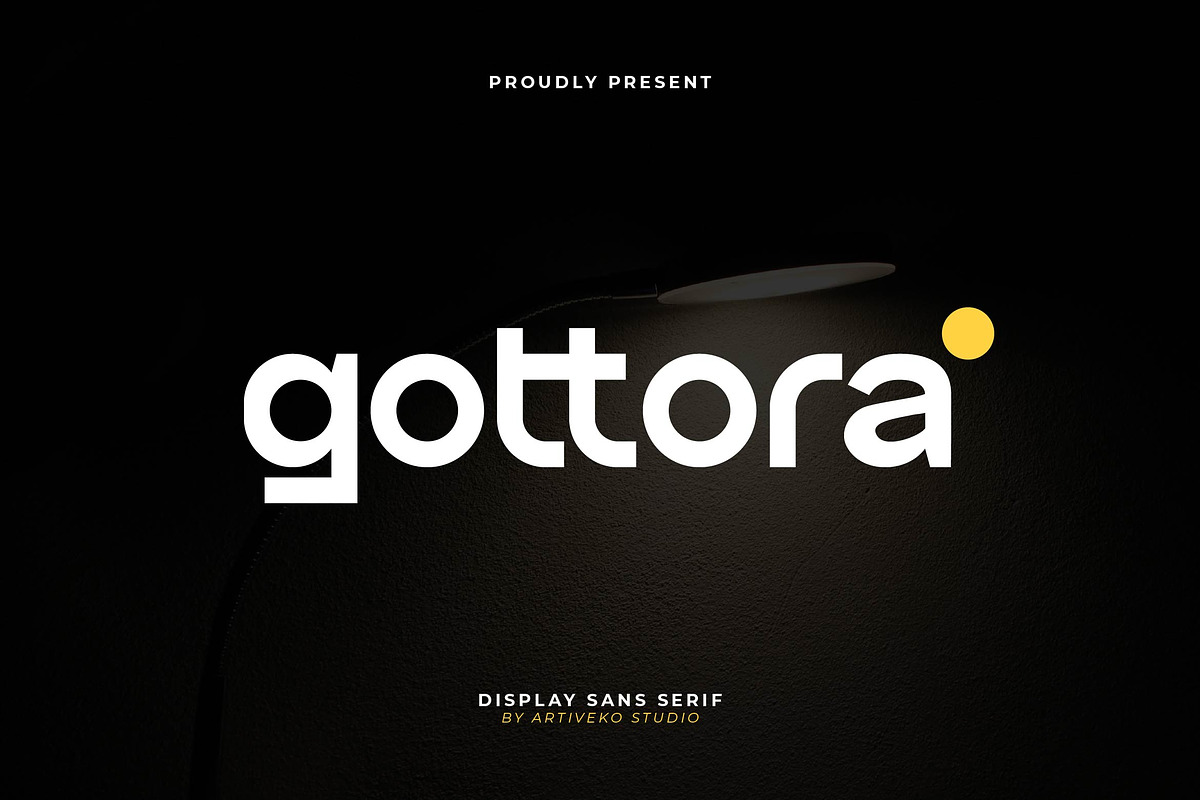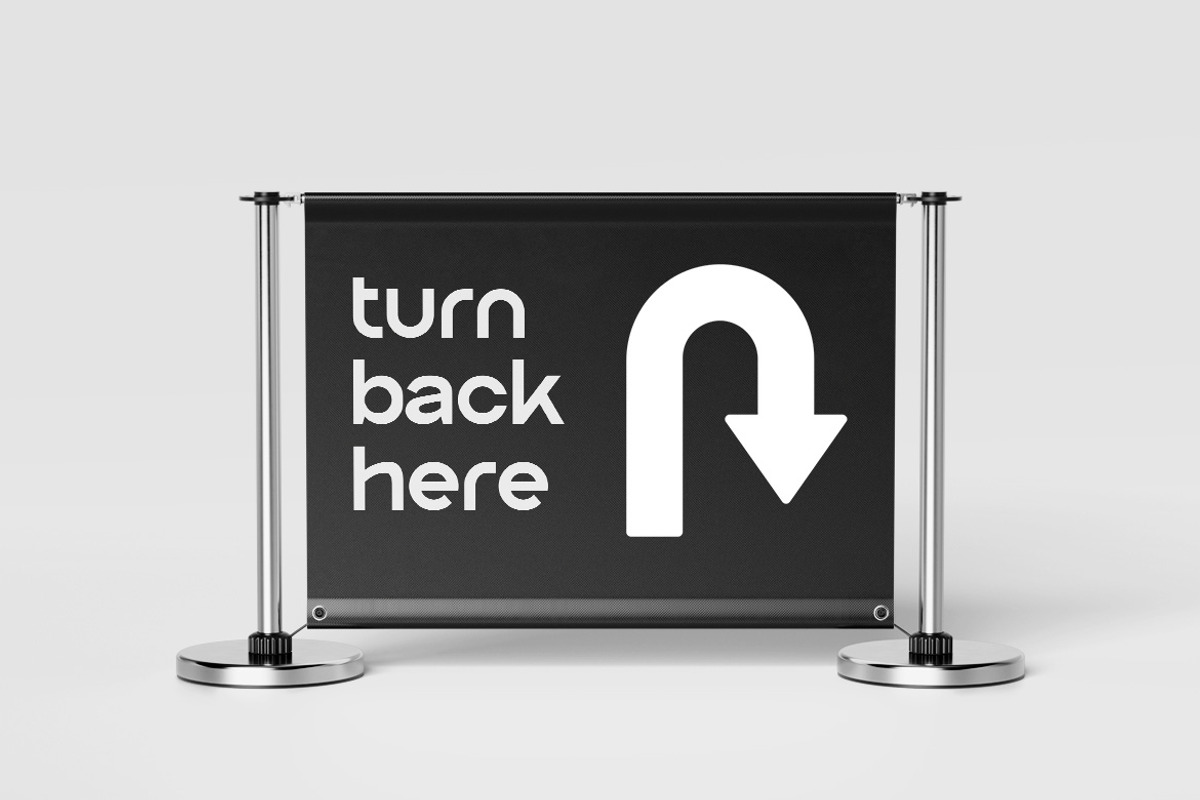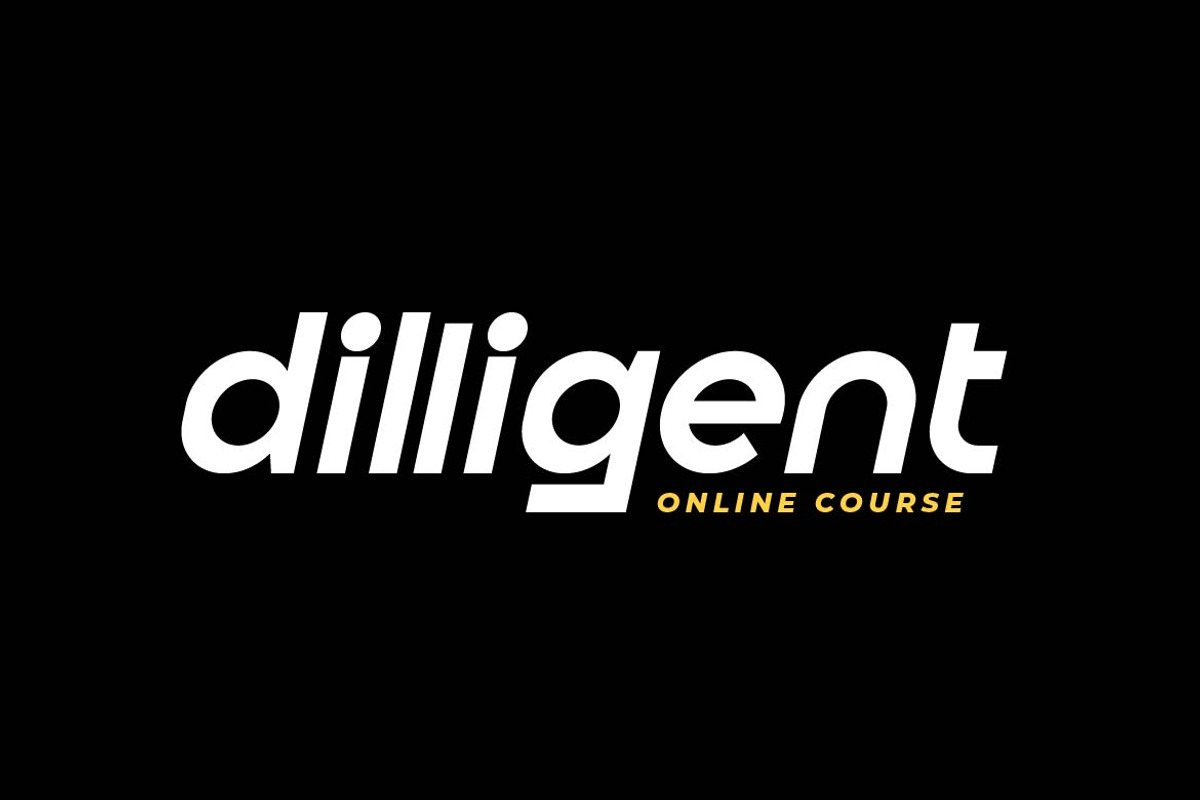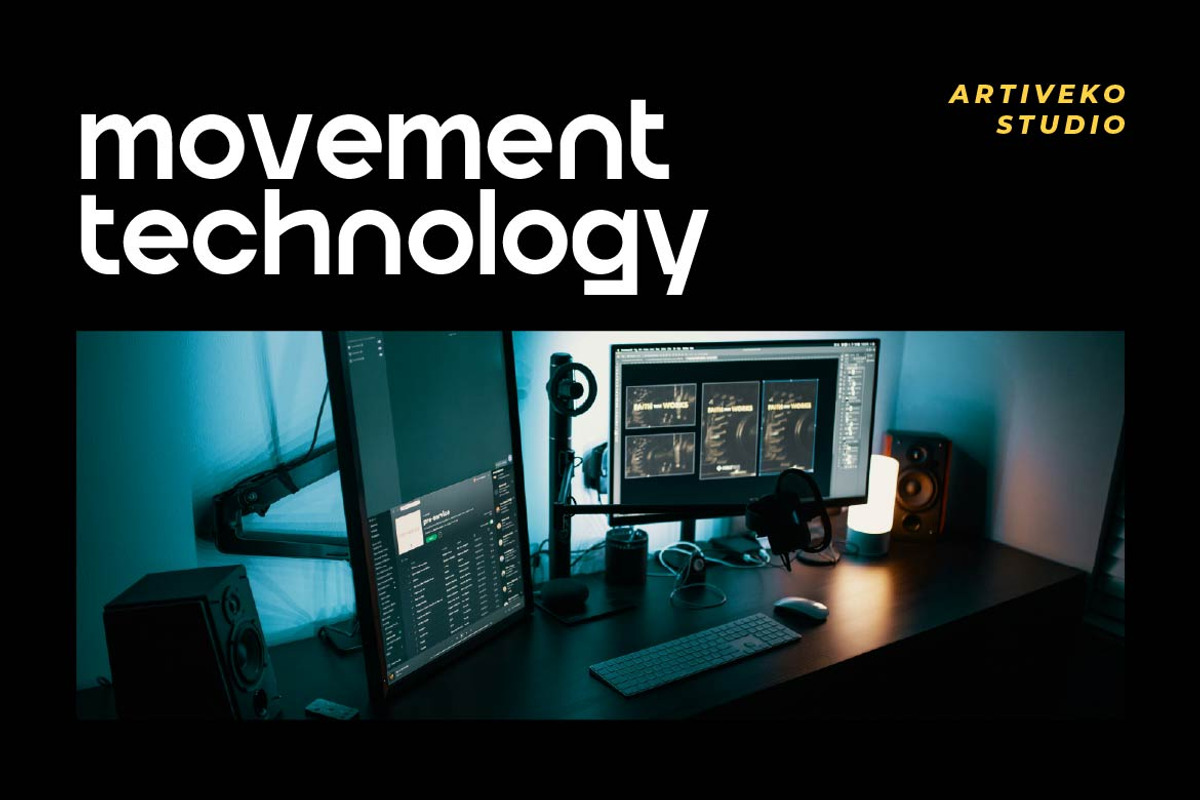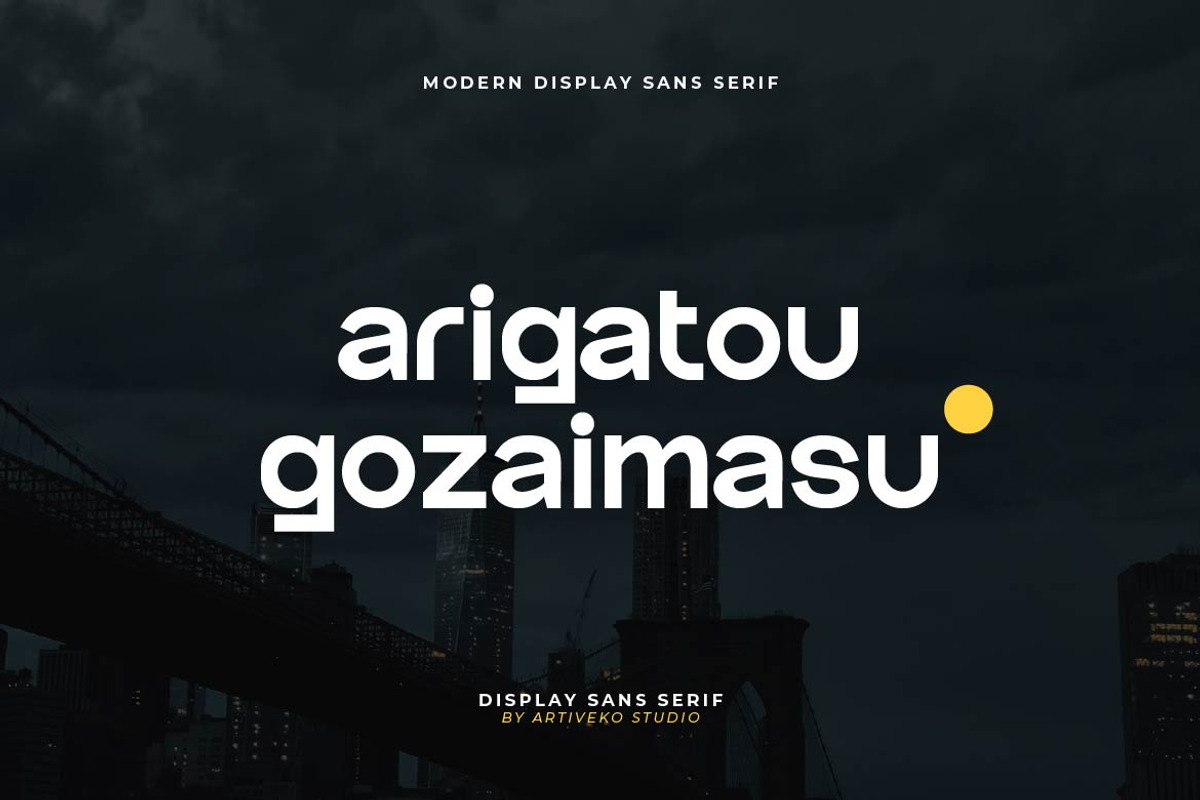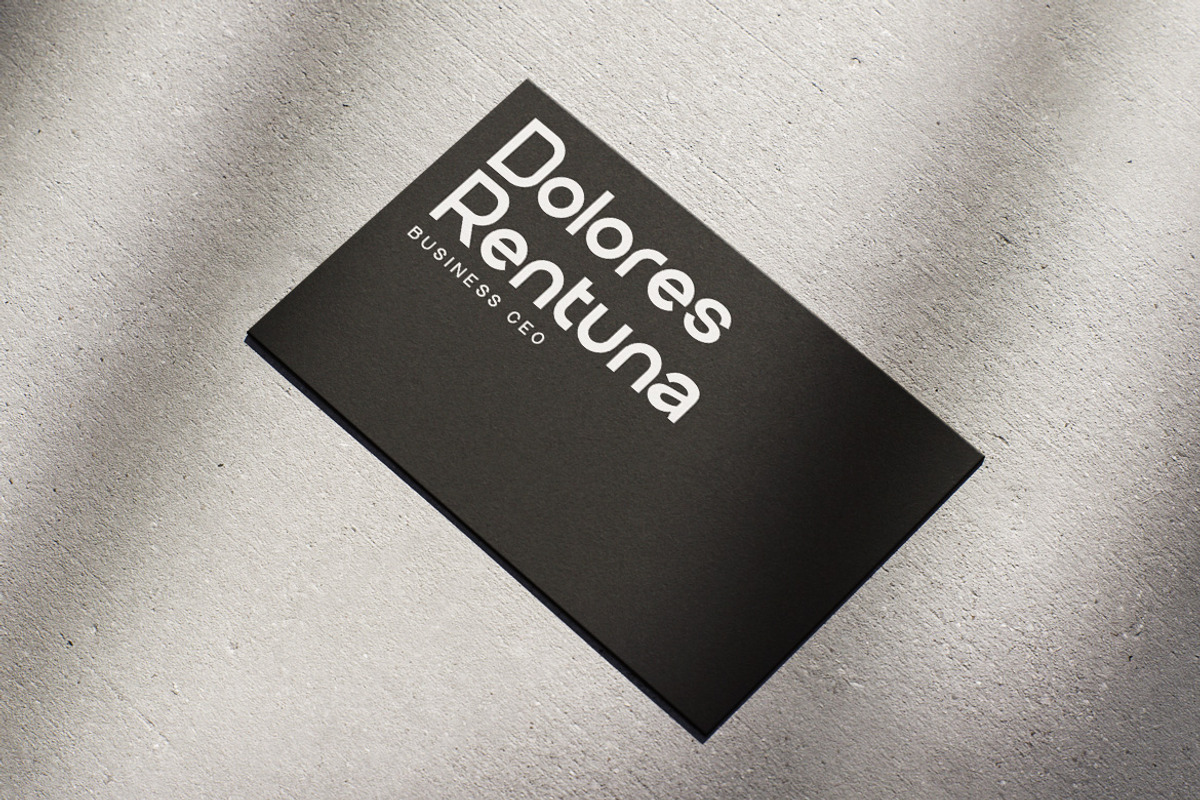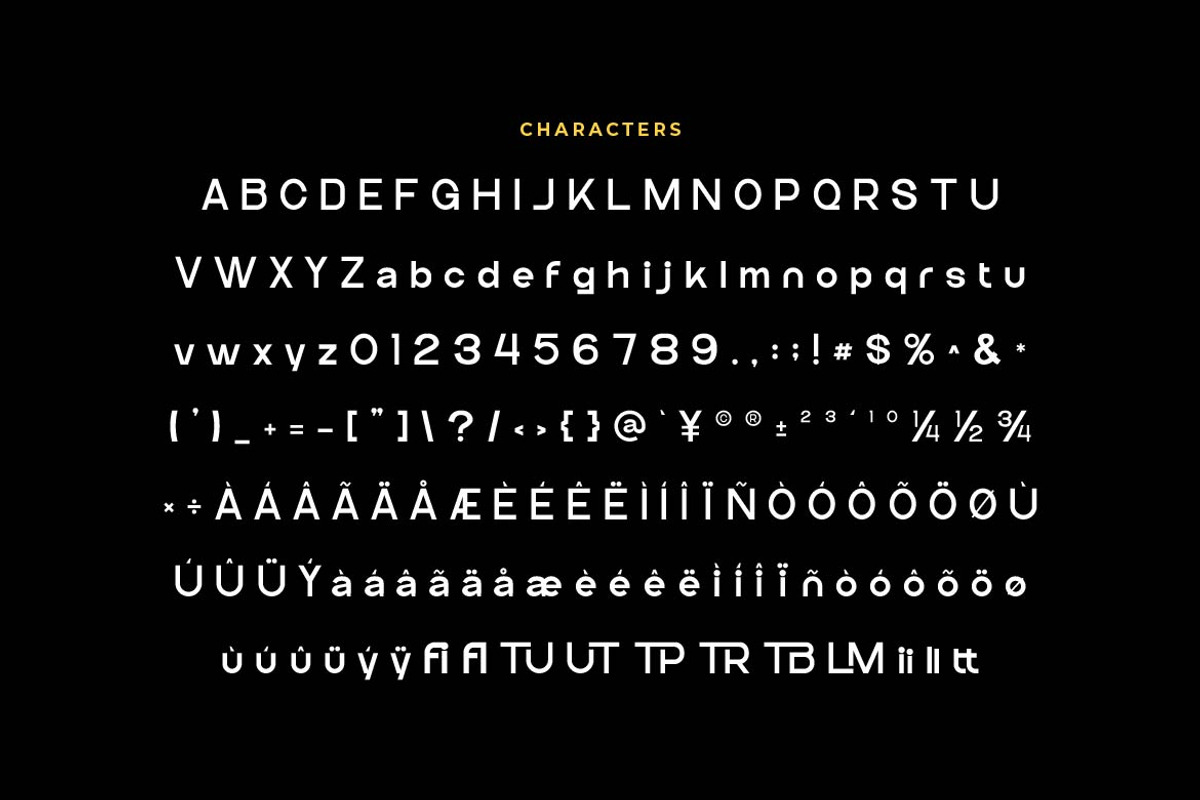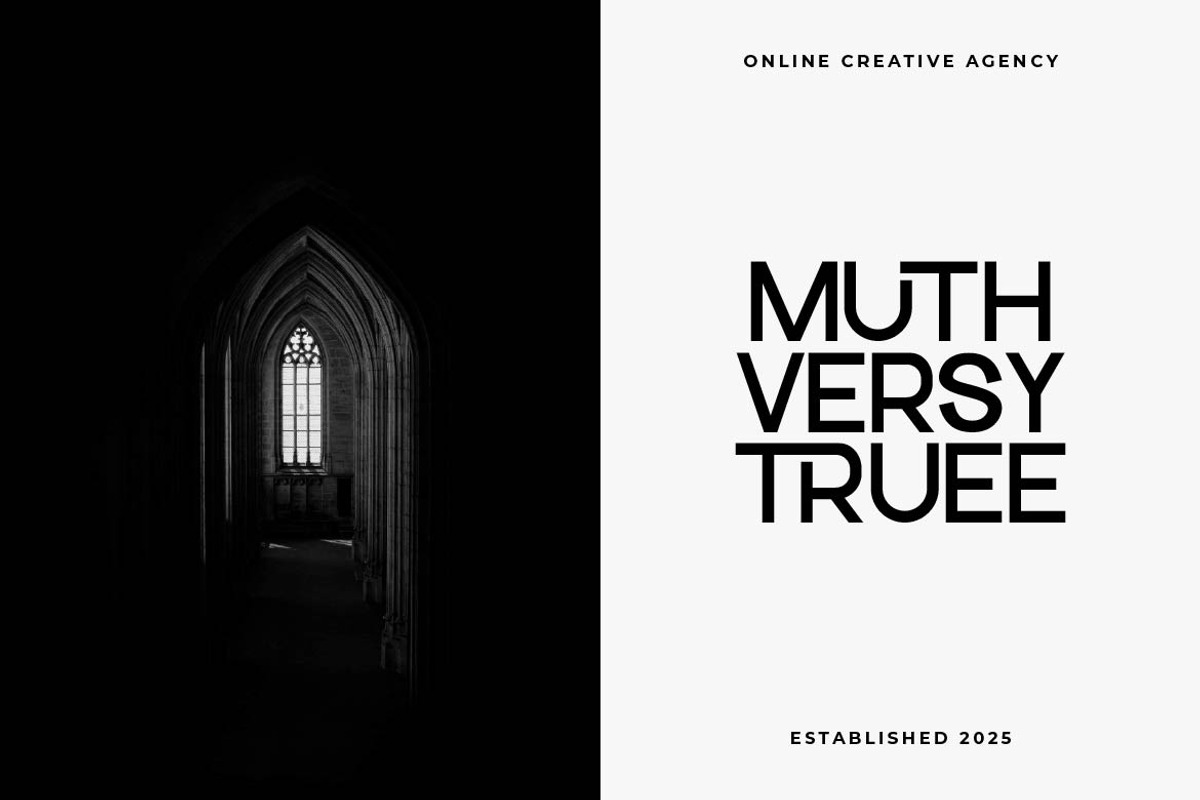
Gottora - Logo Font
Gottora is a bold and contemporary sans serif font crafted to stand out in modern branding and logo design. With its sharp edges, clean geometry, and strong proportions, Gottora delivers a confident and professional look that’s perfect for logos, packaging, website headers, posters, and social media graphics.